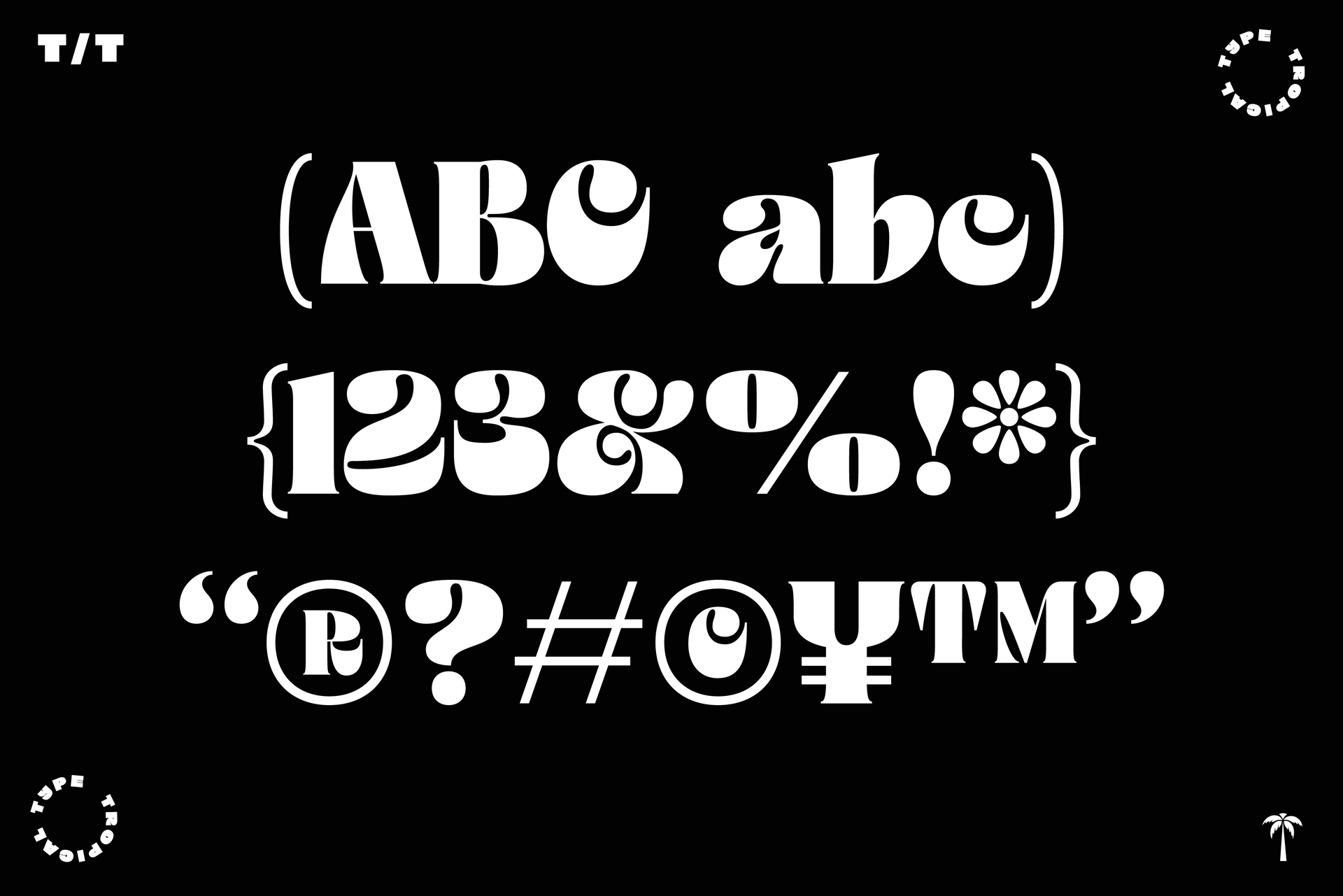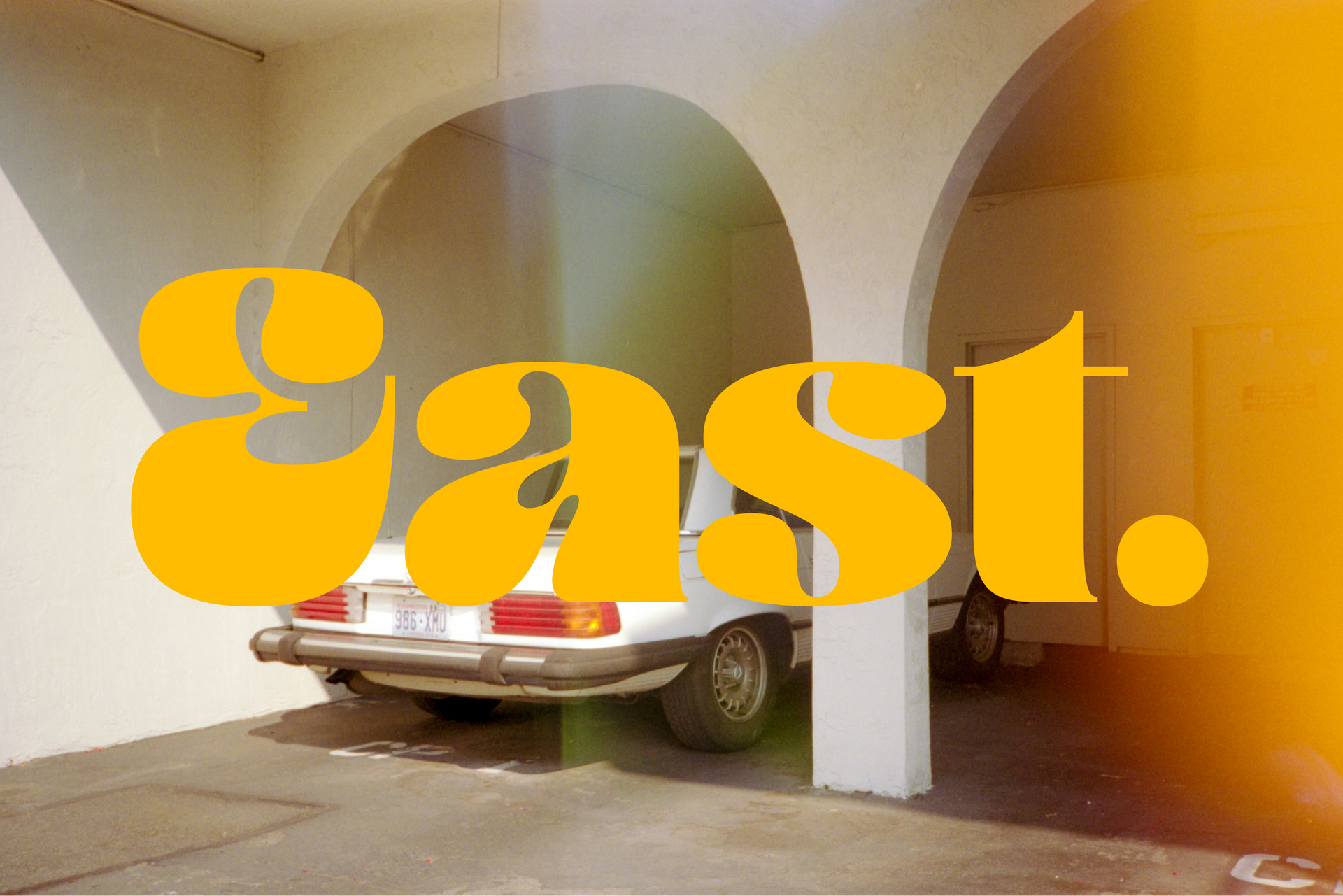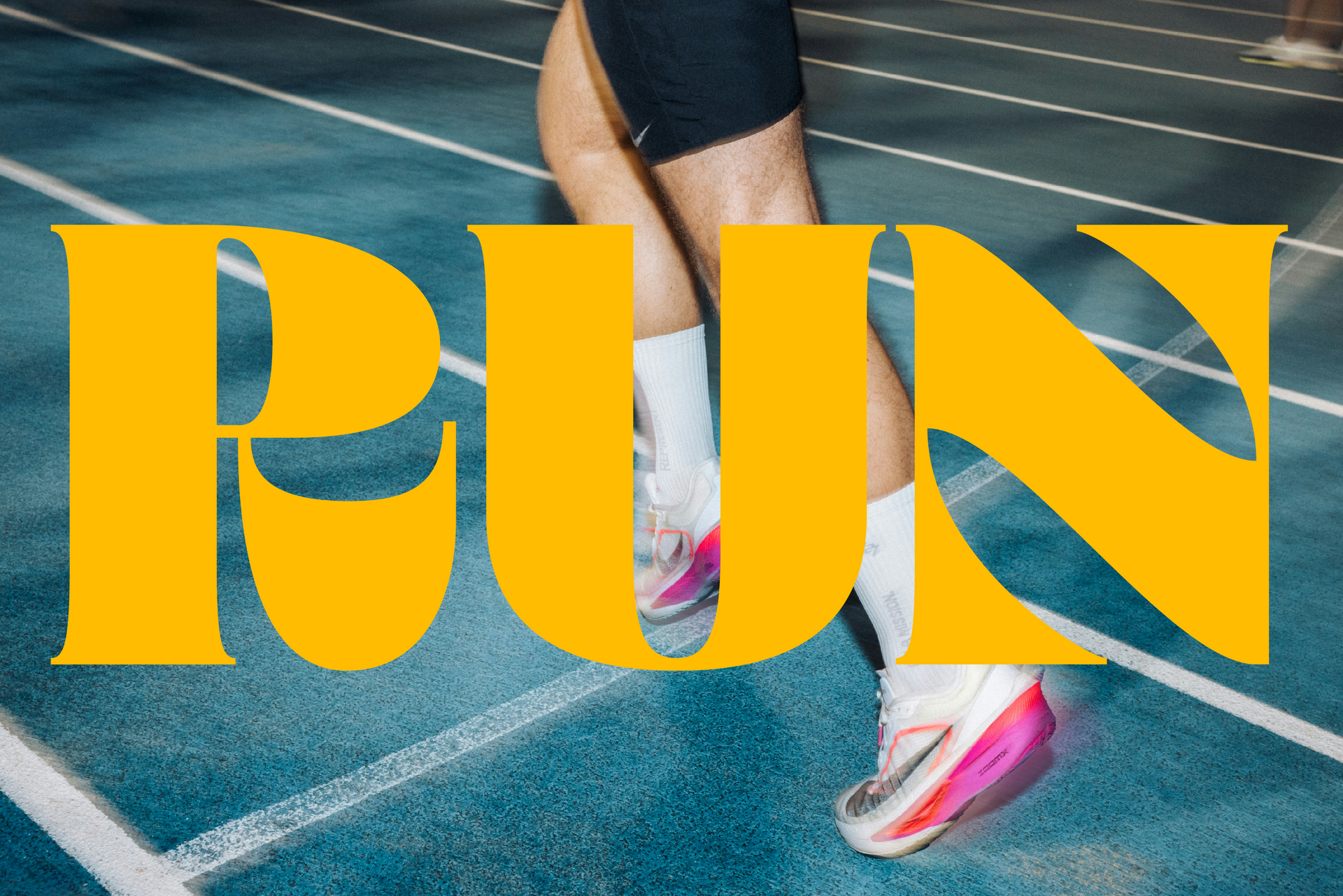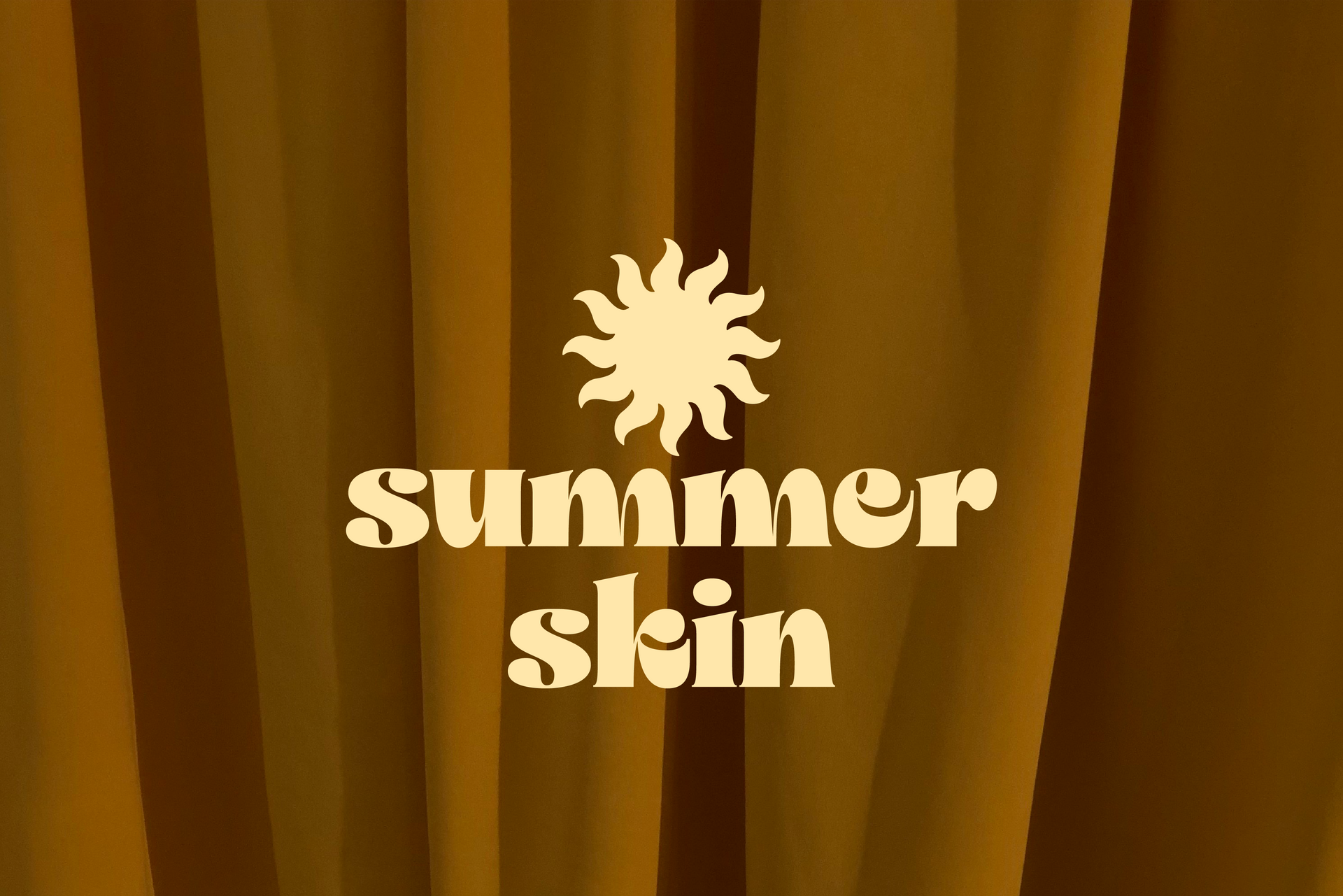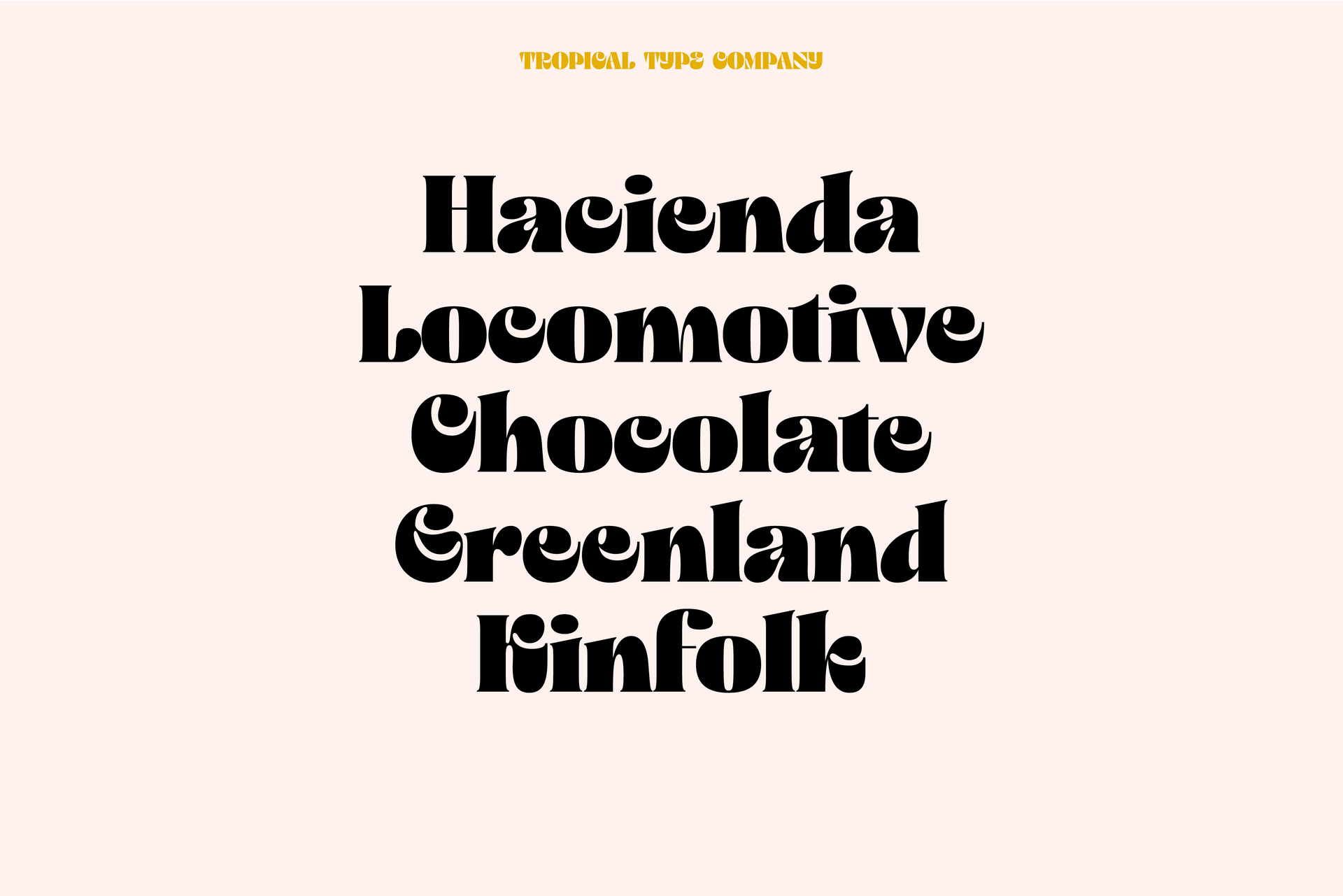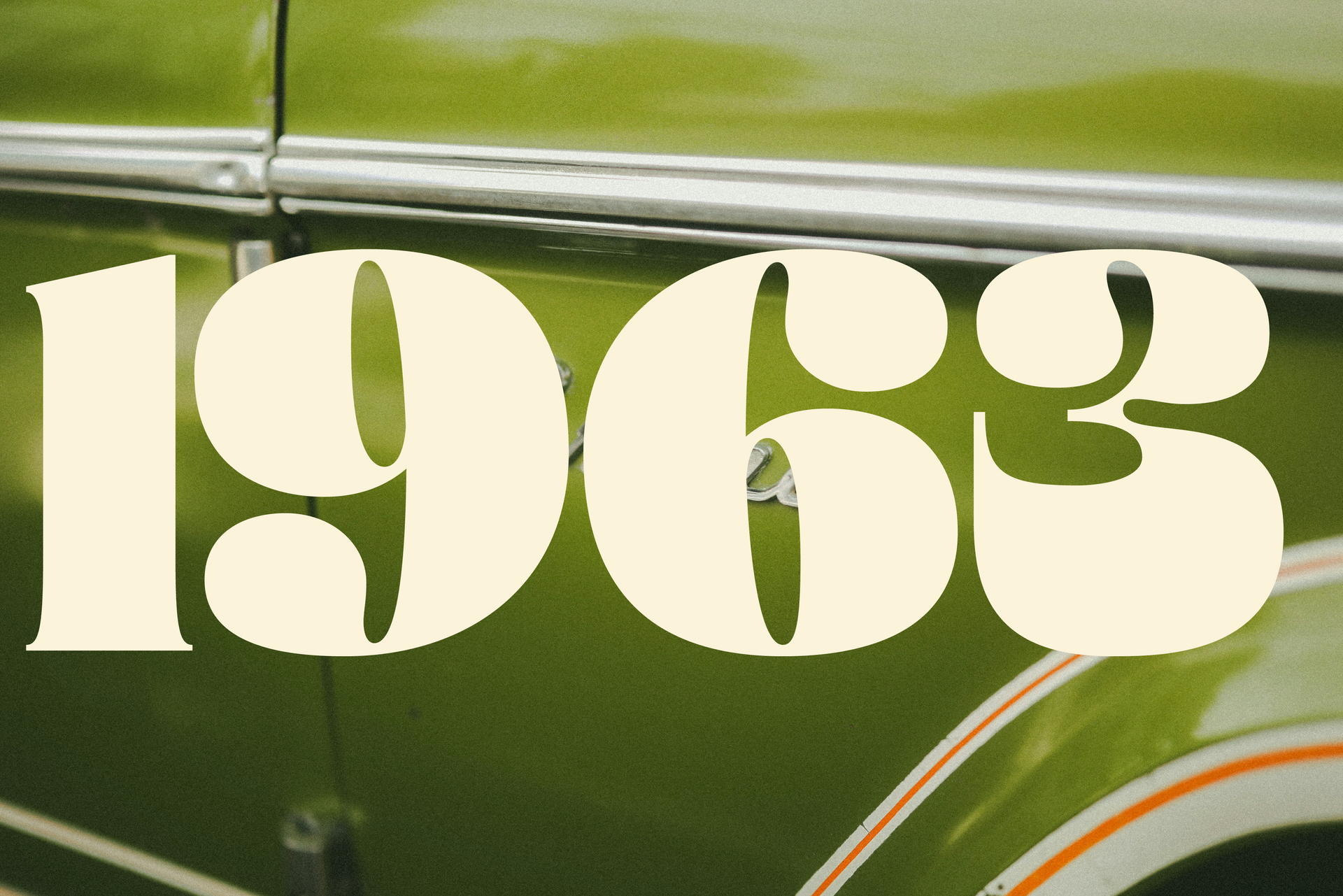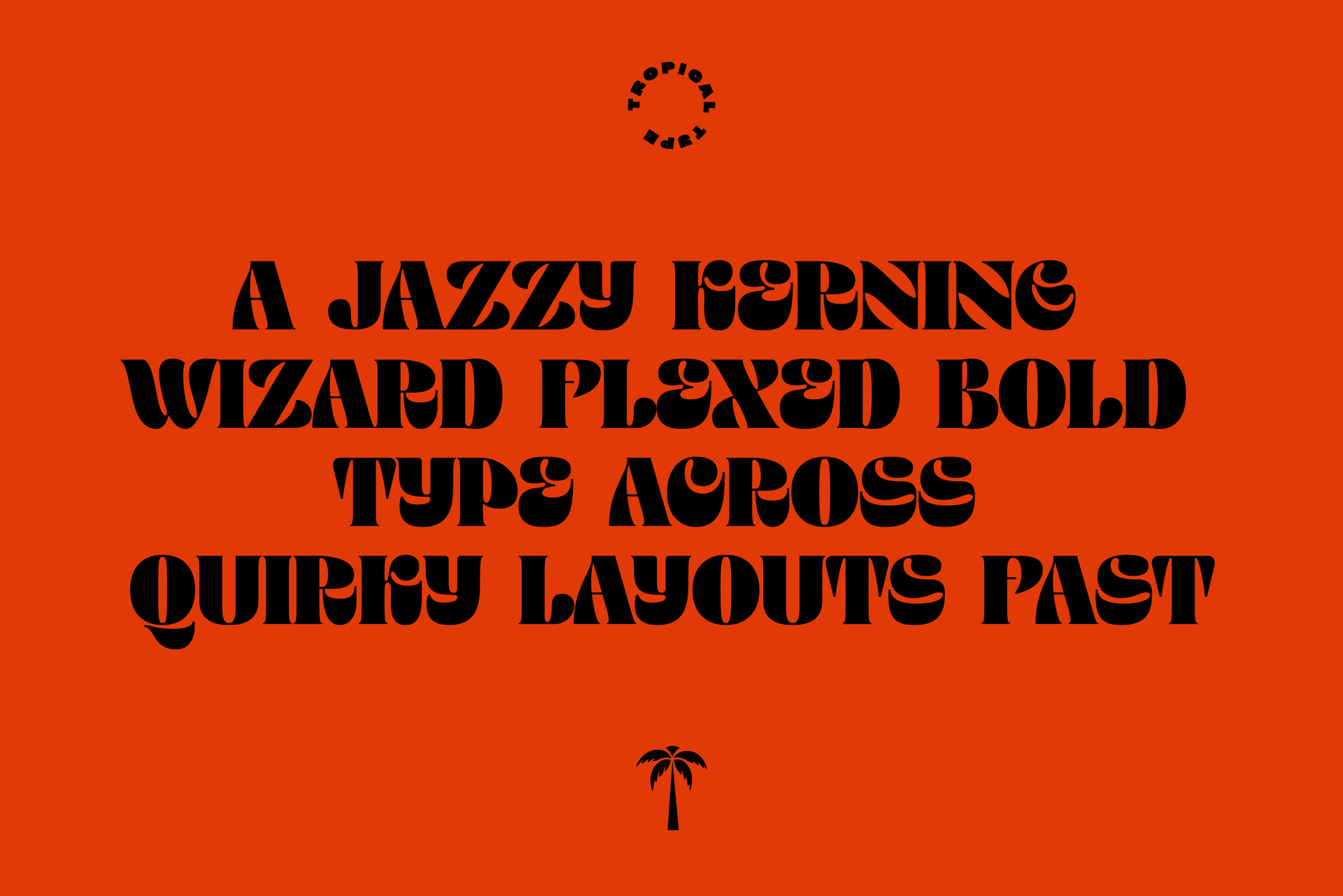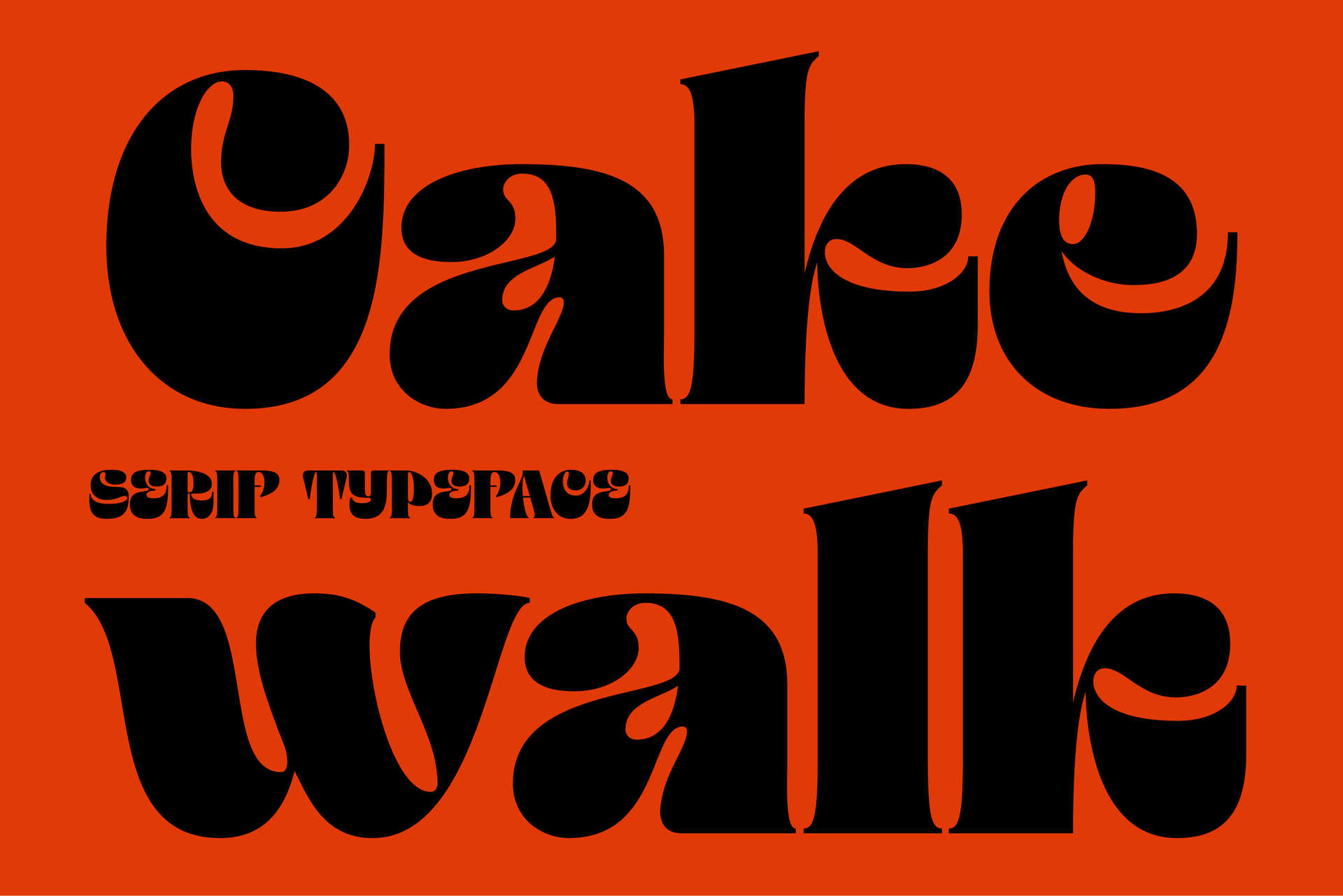
Cakewalk Serif
Cakewalk Serif is a lot of fun. It's oozing character and good vibes while still being quite legible. It's bold with high contrast and just the right amount of nostalgia and works great in branding, editorial, posters, and website headers.
Uppercase, Lowercase, accents and punctuation included.